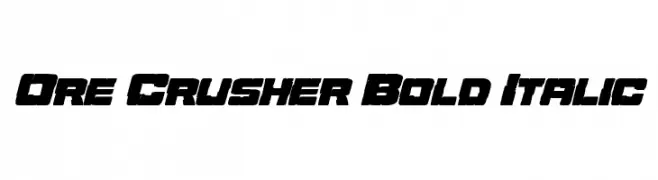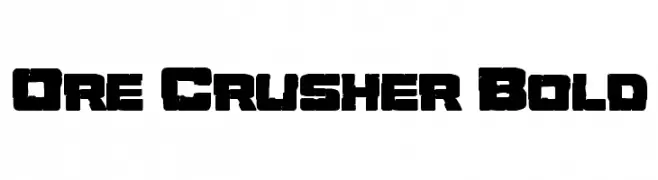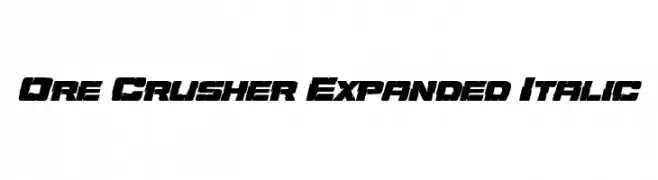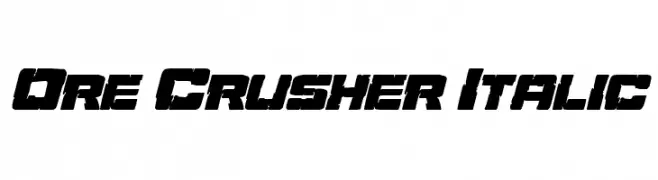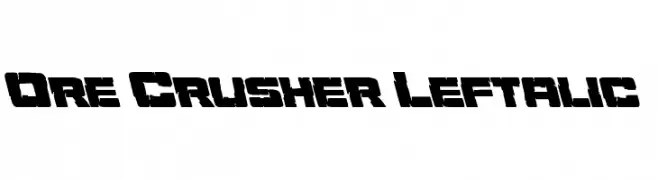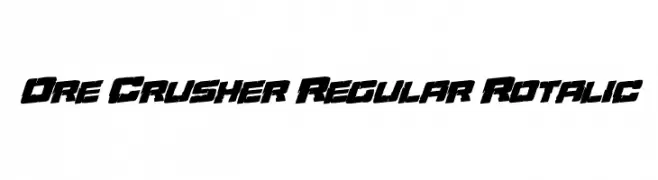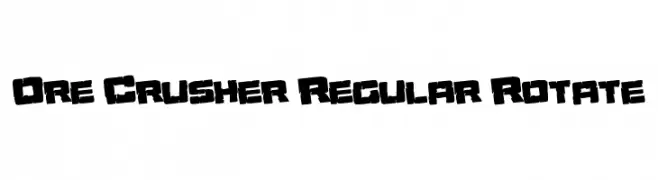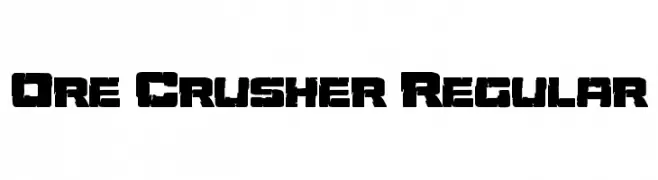
A bold, industrial font with a rugged, distressed texture and geometric structure.
A bold, industrial-style font with a dynamic, slanted design.
A rugged, industrial font with a bold, distressed appearance.
A bold, distressed font with a rugged, industrial look.
A bold, industrial font with a rugged, distressed appearance.
A bold, italicized font with a rugged, industrial design and strong presence.
A bold, rugged font with a distressed, industrial texture.
A bold, italicized font with a rugged, industrial style and high contrast.
A bold, expanded, and italicized font with a modern, industrial look.